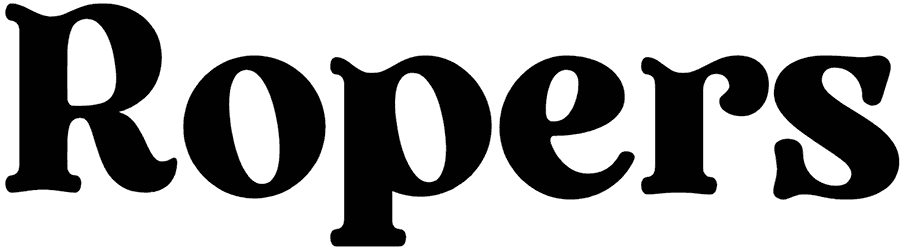
Ropers Font
Do you require a classic style suitable for any taste to decorate your context? This retro font with its fluffy and bold outward can be an attractive option on the table. Ropers has A-Z characters, and you can set it for any design, such as logotypes, flyers, magazines, and along with others.